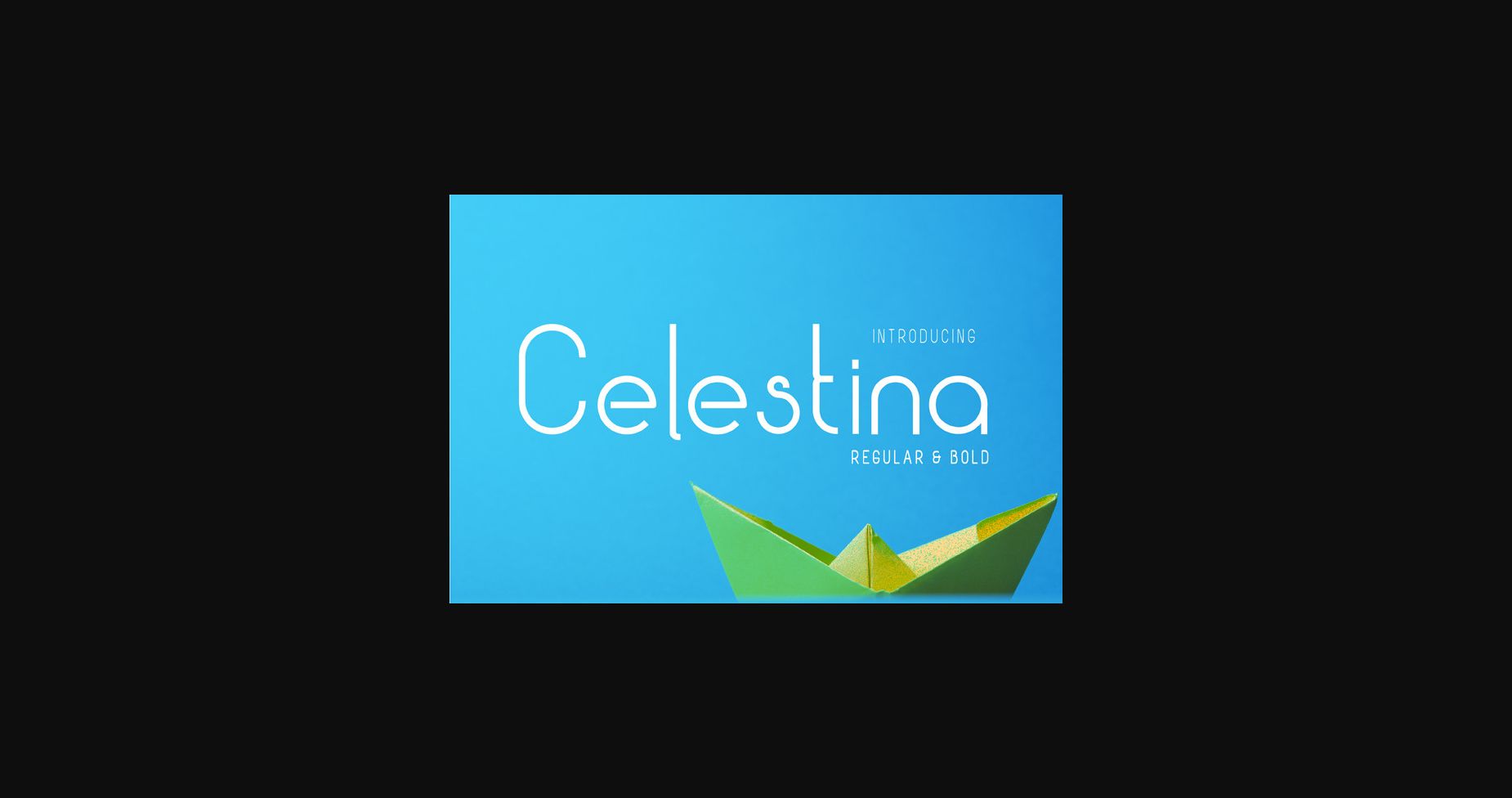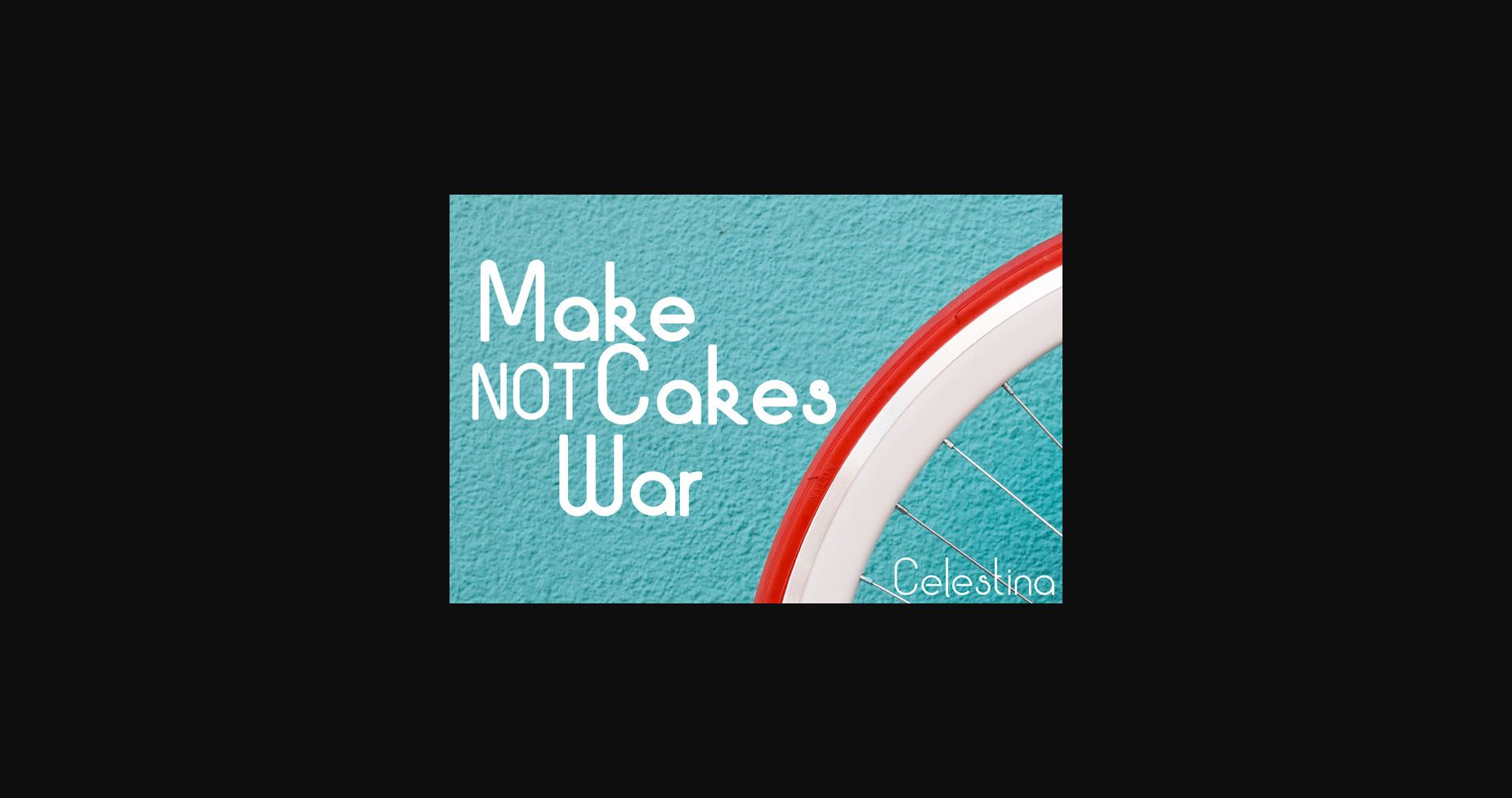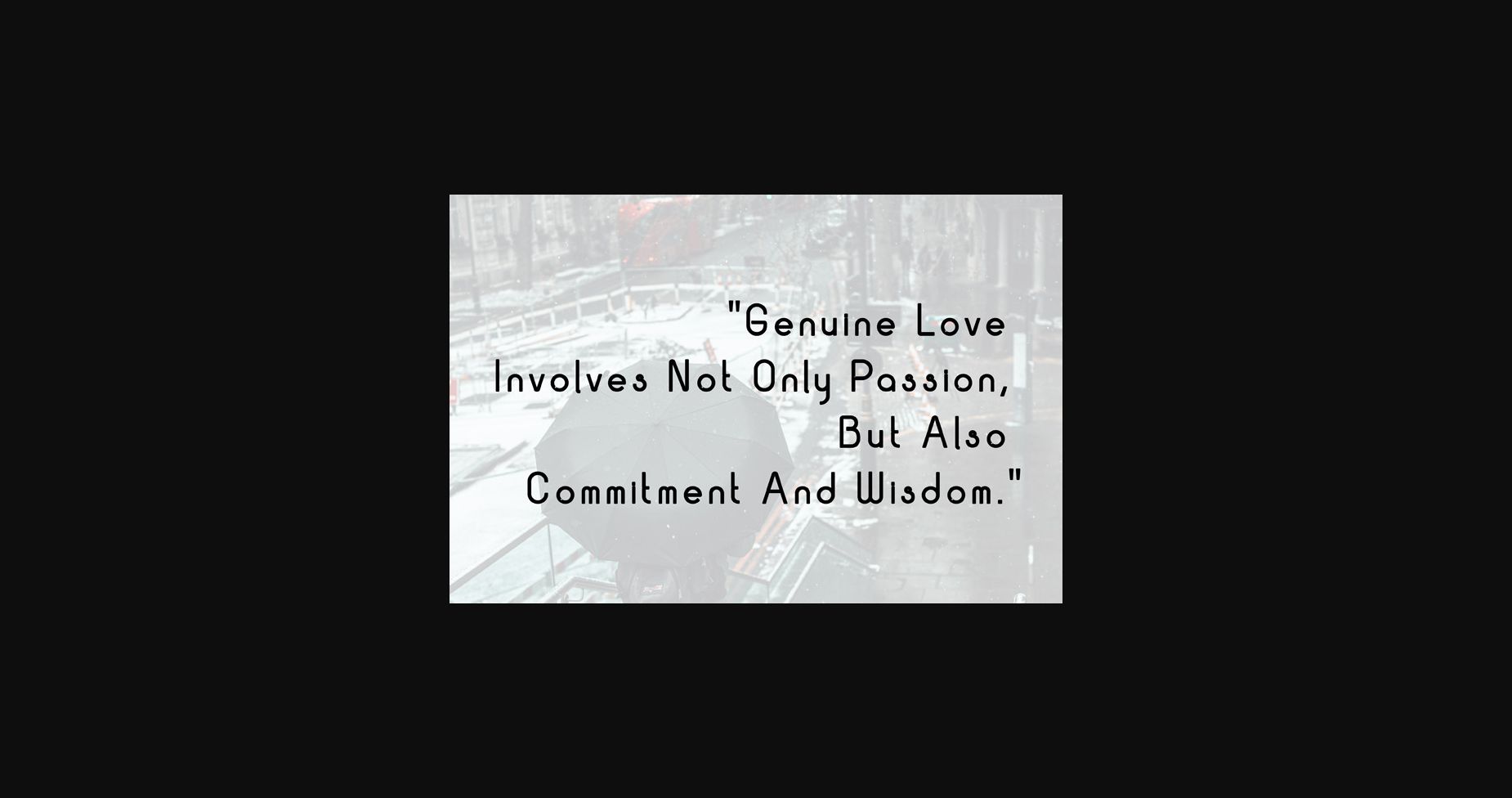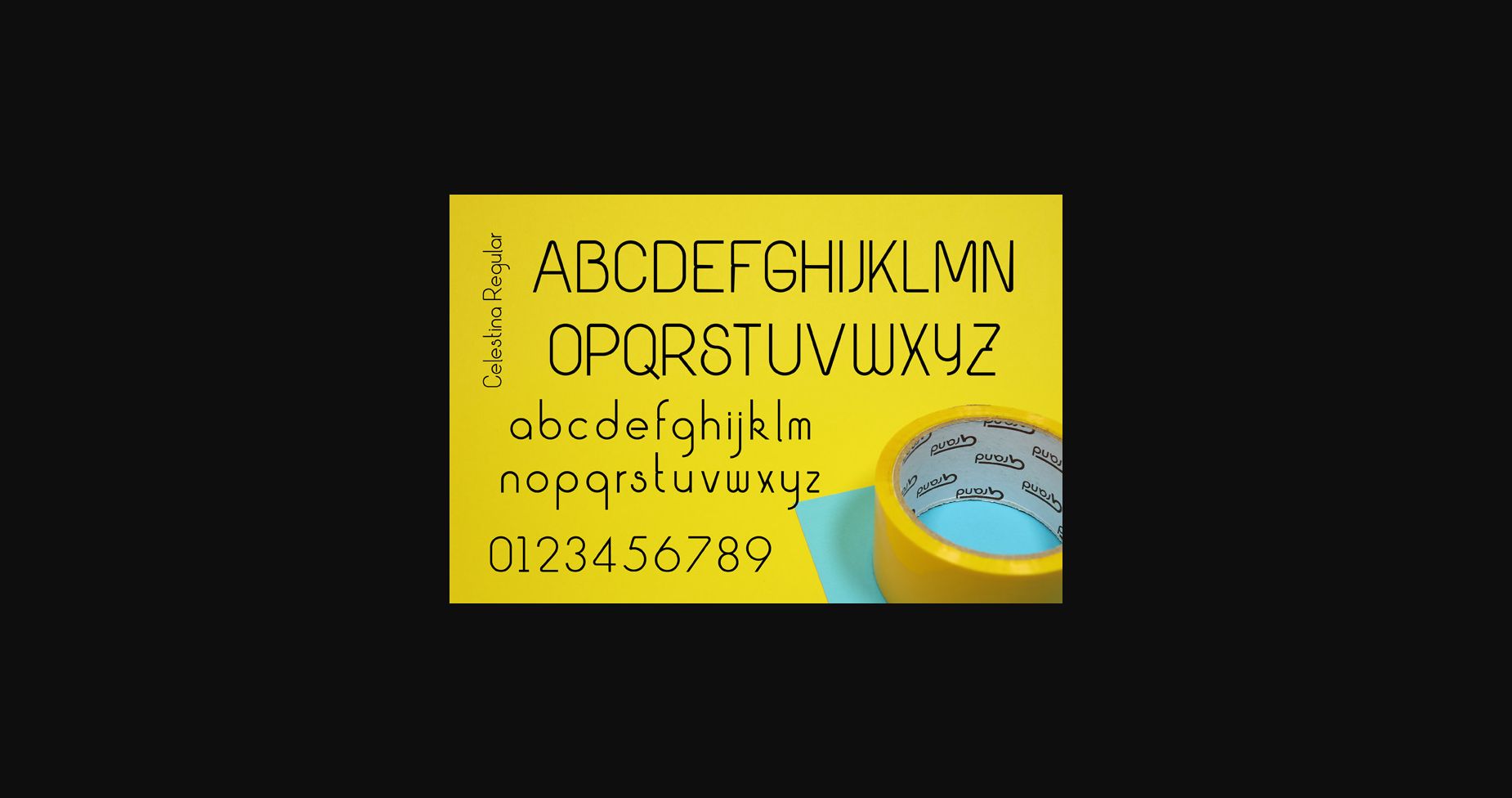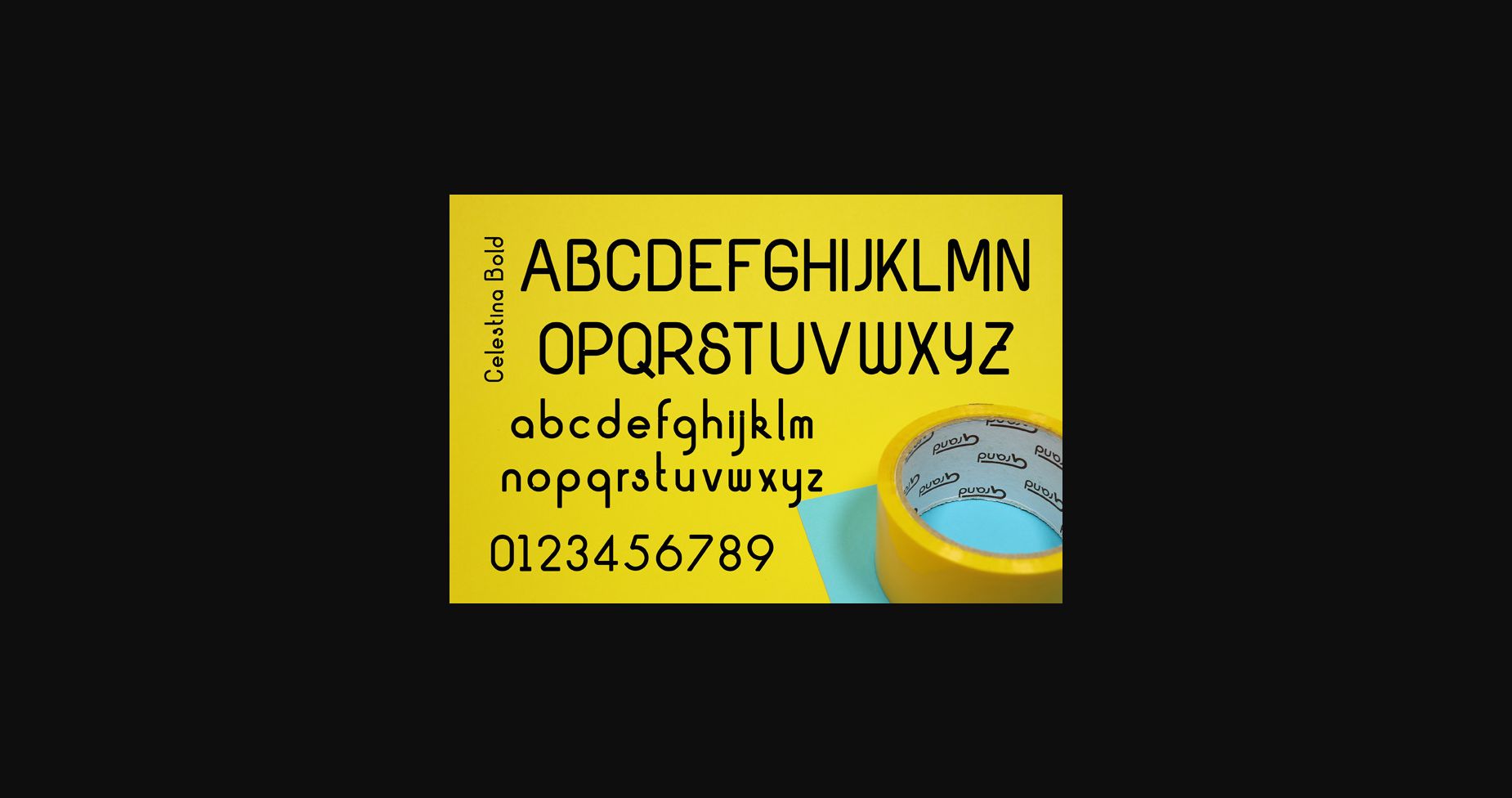
About Celestina Font
Celestina is a cool, simple styled and neat sans serif font. No matter the topic, this font will be an incredibly asset to your fonts’ library, as it has the potential to elevate any creation.